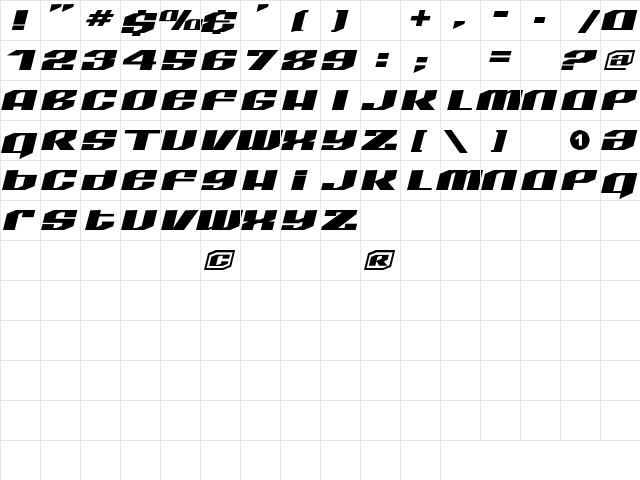
LHFQuantum Regular
Design Context for LHFQuantum Typeface
LHFQuantum is a composed and adaptable typeface that performs quietly and consistently across a wide range of design contexts.